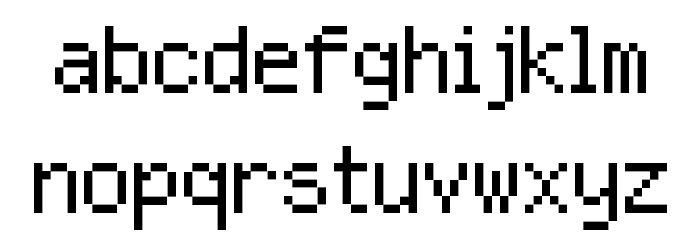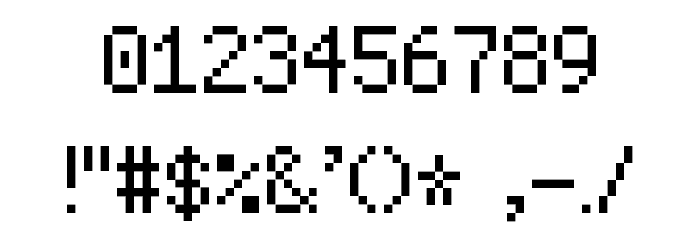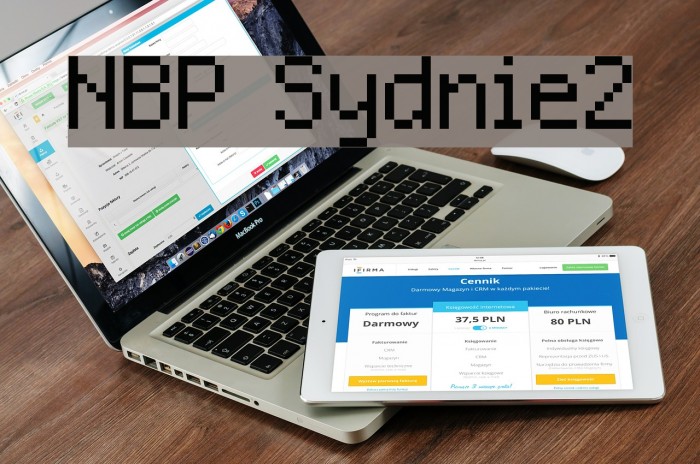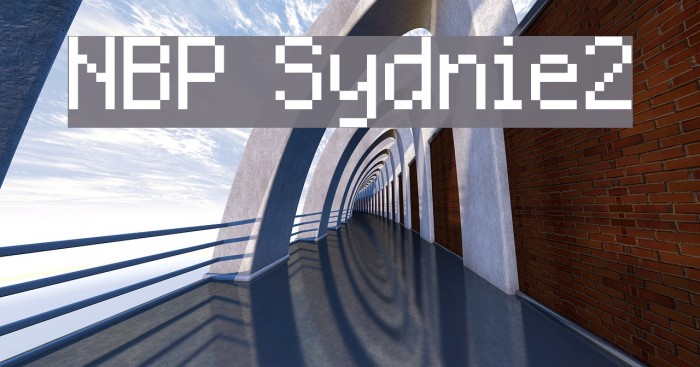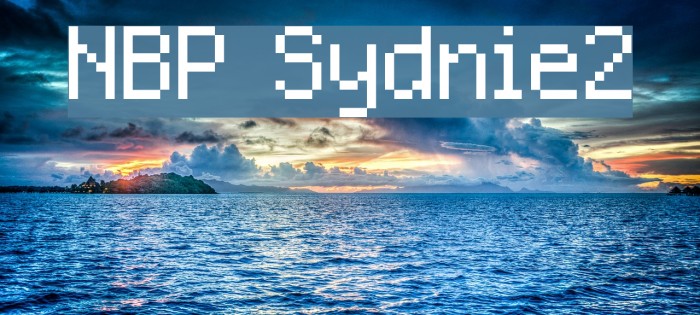
NBP Sydnie2 Font
This font features a pixelated, blocky design reminiscent of early digital displays and retro video games. Each character is constructed with a grid-like precision, giving it a distinctly digital and geometric appearance. The uppercase and lowercase letters maintain a consistent height, contributing to a uniform and cohesive look. The numbers and special characters follow the same pixelated style, ensuring visual harmony across all elements. This font's simplicity and clarity make it highly legible, even at smaller sizes. Its nostalgic aesthetic is perfect for projects that aim to evoke a sense of retro technology or digital minimalism.
A pixelated, blocky font with a retro digital aesthetic.
- Proposed Projects: Ideal for retro-themed video games, digital art projects, tech-related branding, and nostalgic graphic designs.
- Overall Style: Retro, Digital
- Use Case: Headlines, Logos, Digital Displays